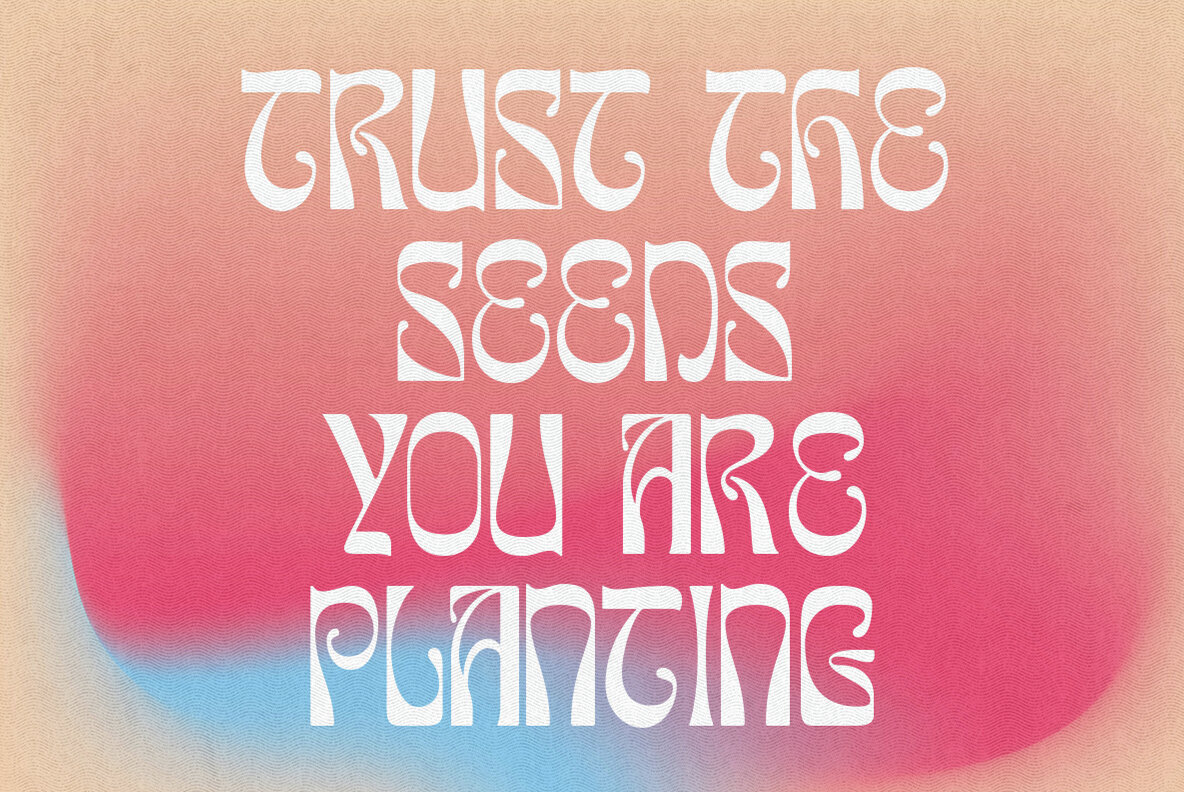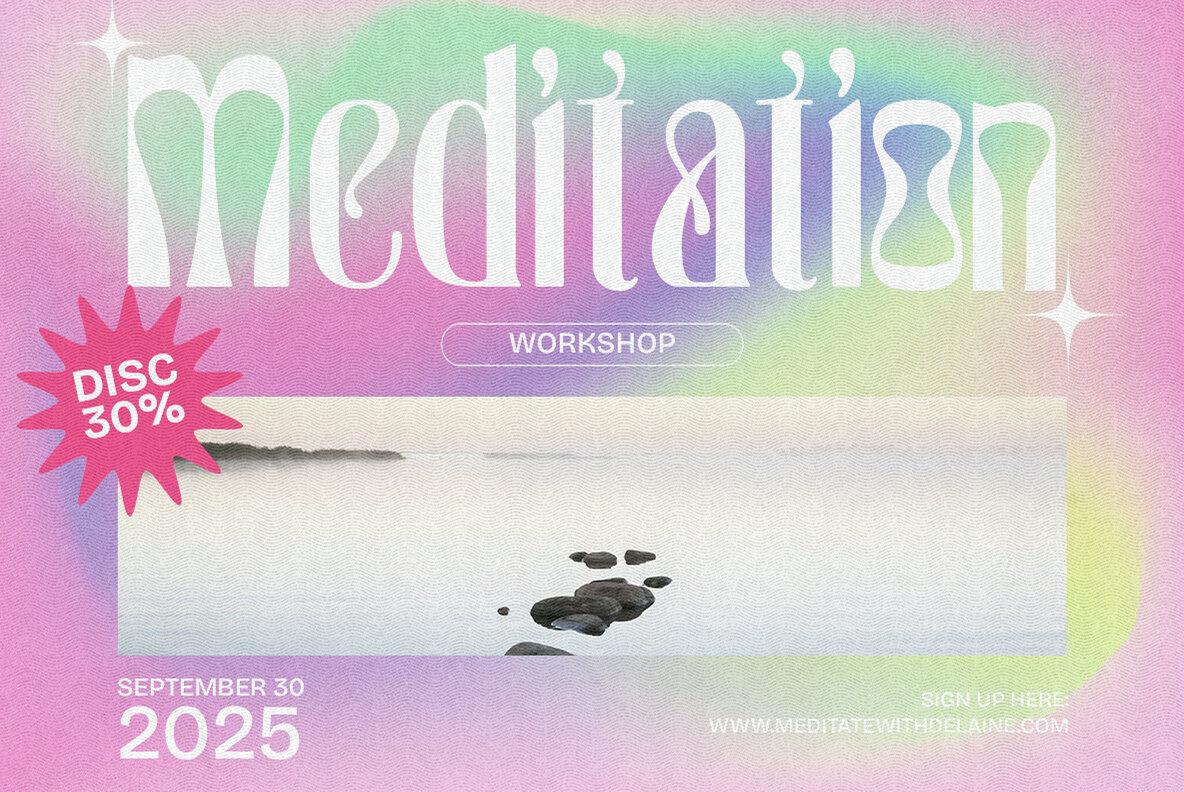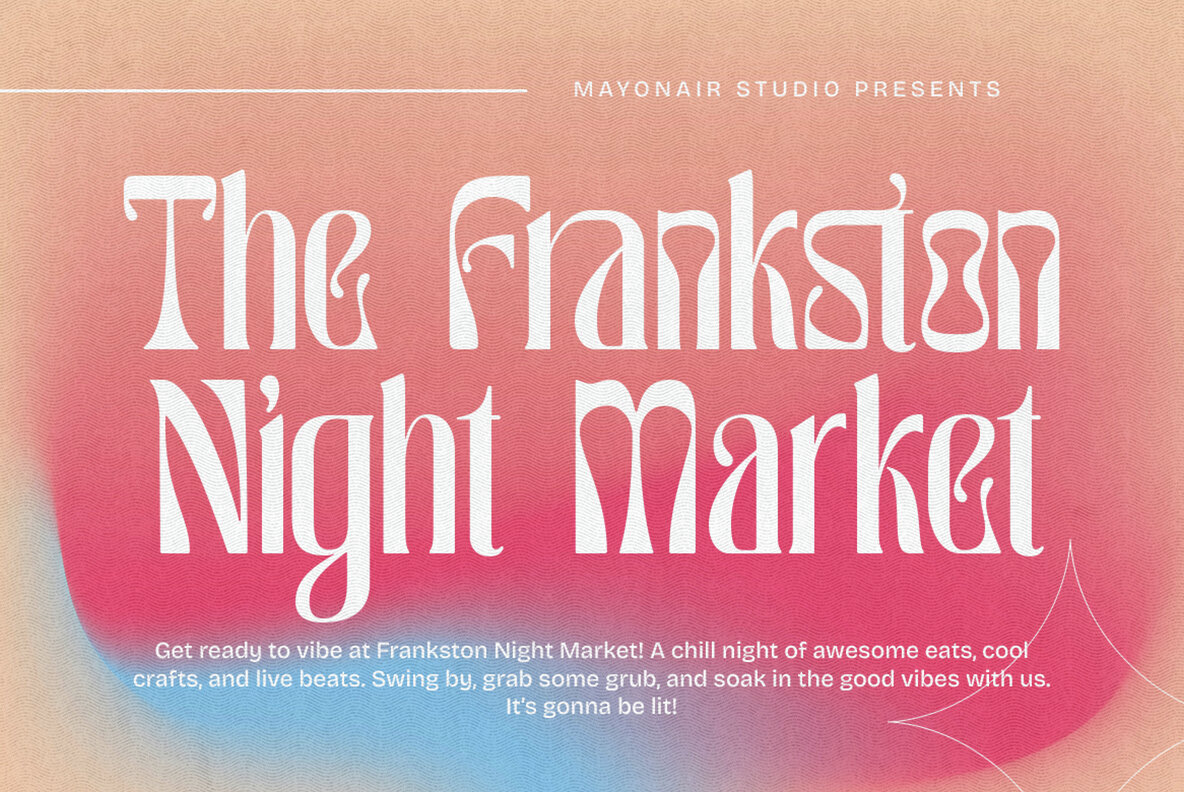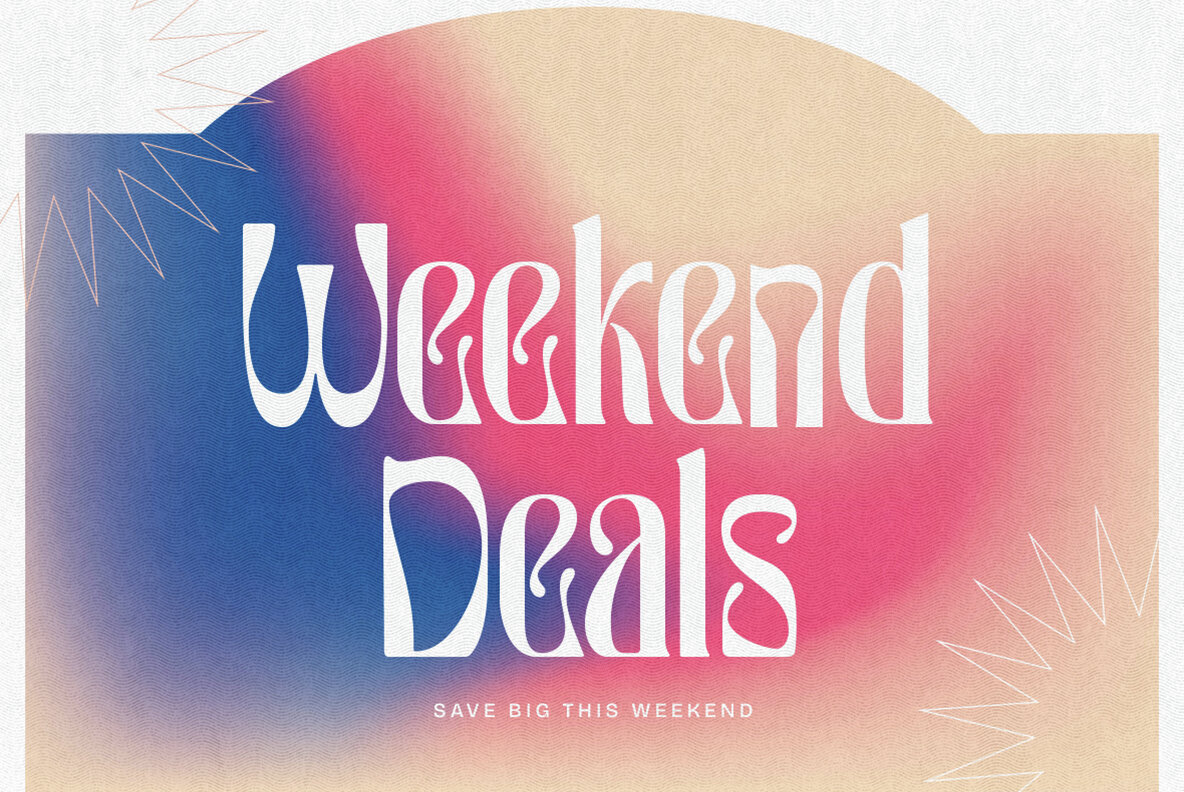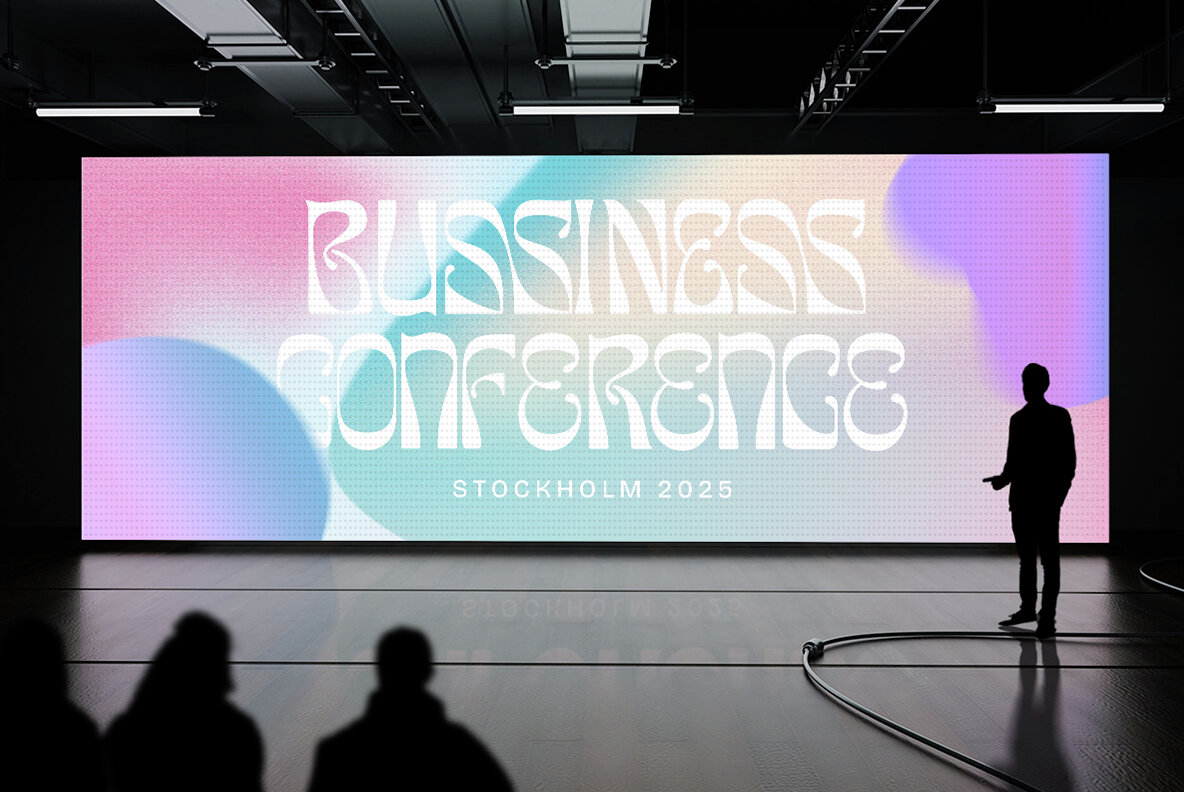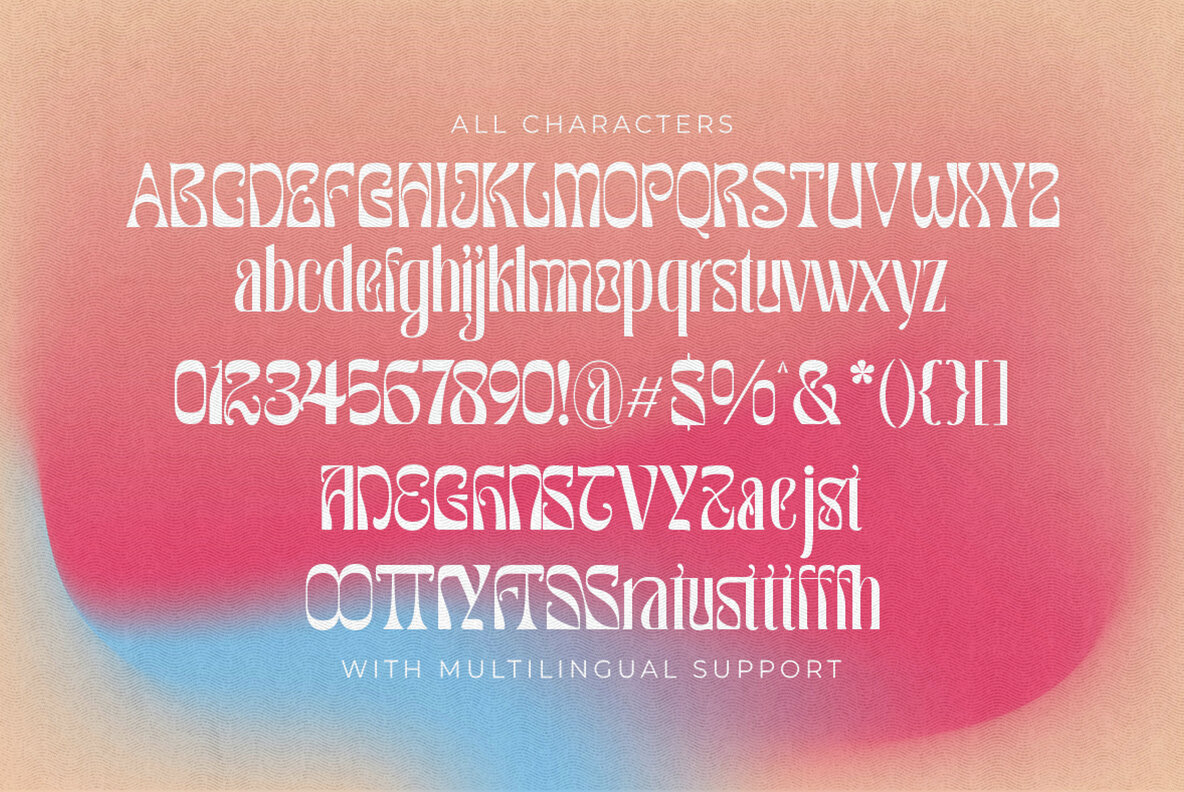
Stockdale Font
RT Stockdale Regular
Stockdale is a sophisticated editorial display font designed to elevate your projects with a touch of elegance and refined style. Its graceful letterforms and balanced structure make it a perfect choice for editorial layouts, magazine headlines, branding, and luxury design. With its timeless appeal, Stockdale effortlessly captures a blend of modern sophistication and classic beauty, ensuring your text stands out with a sense of poise and finesse.